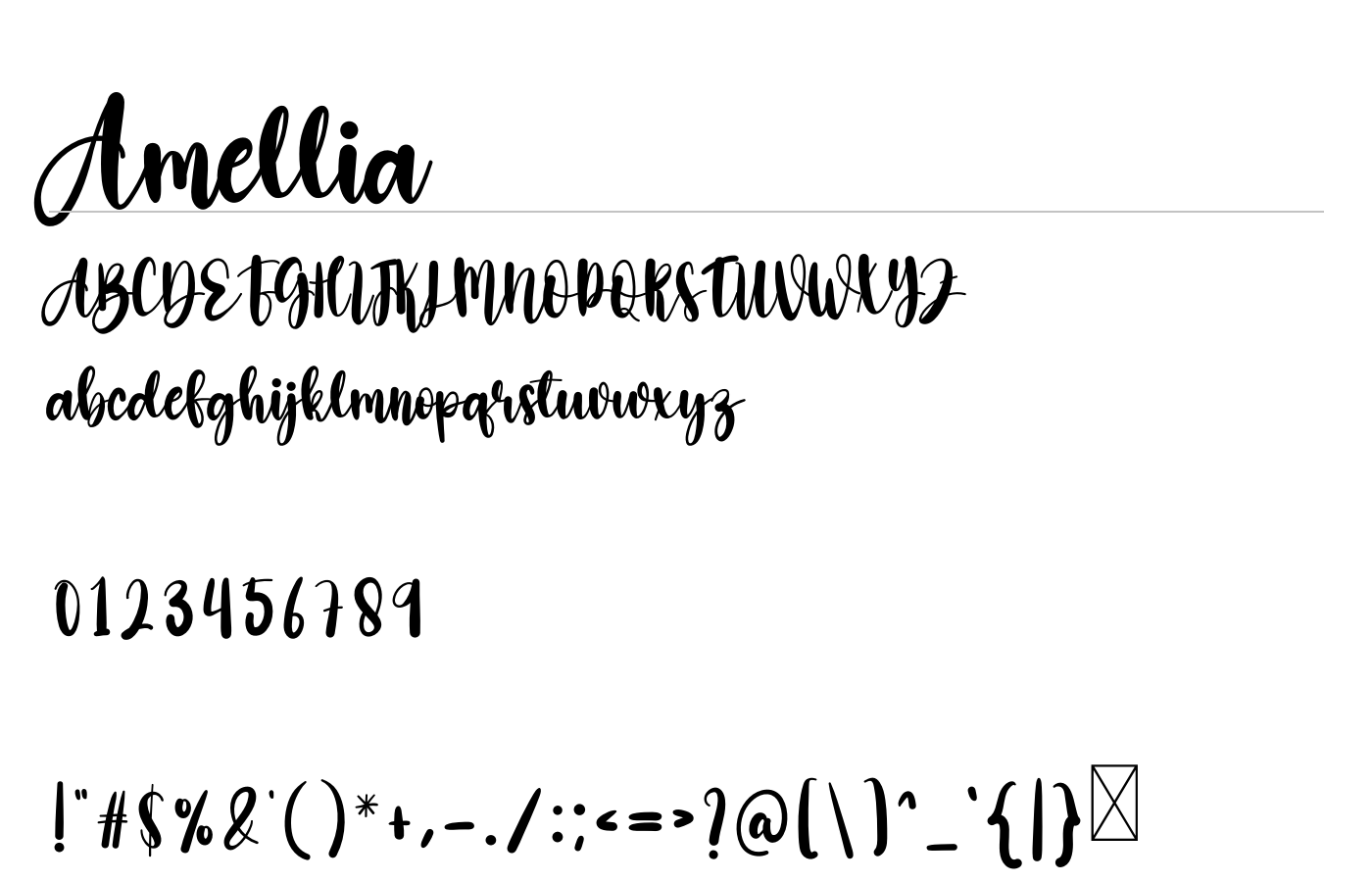
Amellia is a lively and elegant script font with a handwritten style that combines smooth, flowing strokes with high contrast between thick and thin lines. It features playful yet refined letterforms with tall x-height and unique, decorative uppercase characters, making it perfect for adding a personal, stylish touch to invitations, branding, and creative design projects. Its warm and approachable personality works well for fashion, beauty, and lifestyle brands seeking a modern yet friendly look.
Amellia Font
About Amellia Font